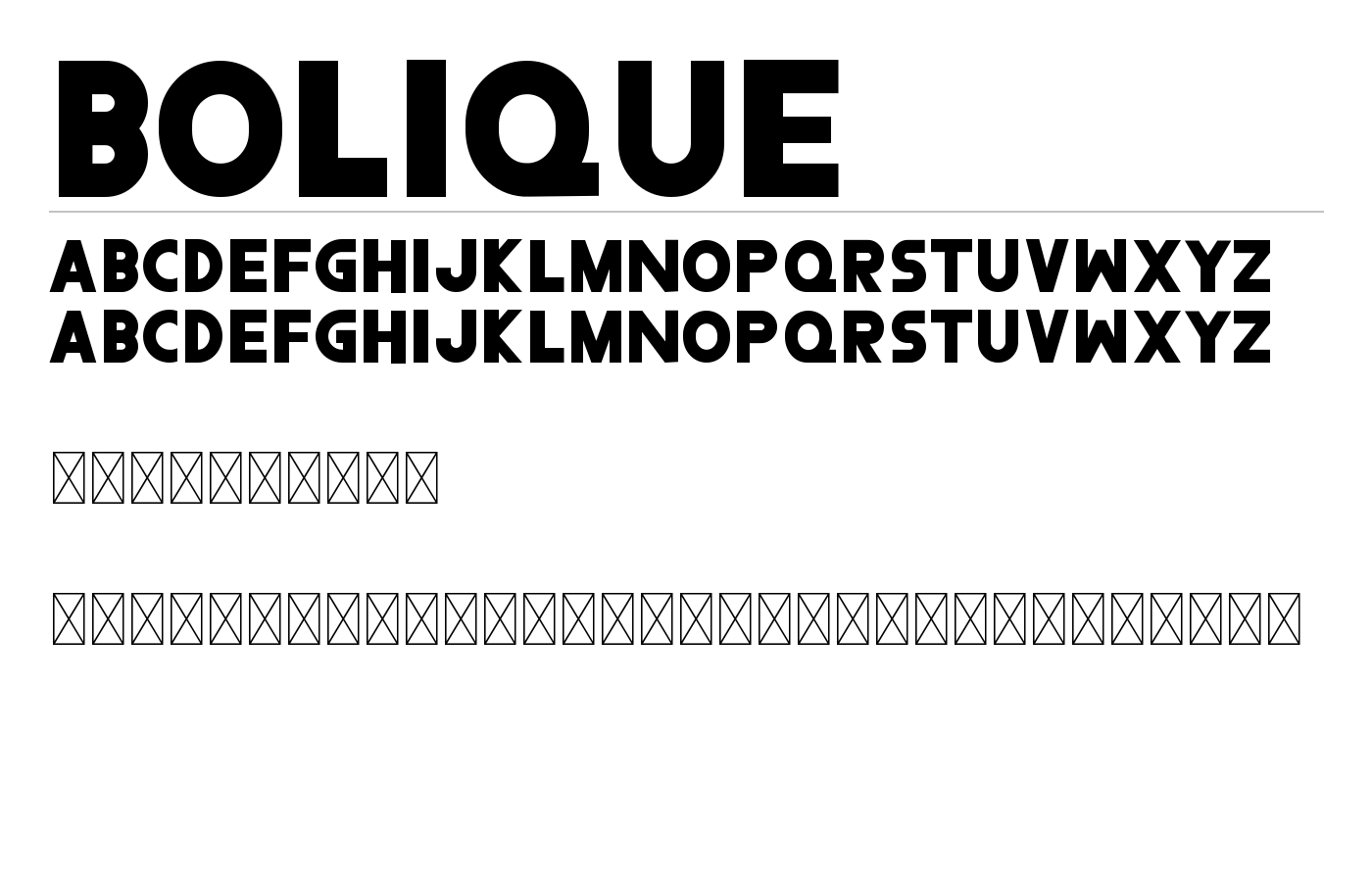
Bolique is a bold, geometric sans serif font characterized by thick, uniform strokes and a strong, structured appearance. Its wide letterforms and clean lines give it a modern, confident feel, making it ideal for impactful headlines, branding, and design projects that require a striking, contemporary look. This font works especially well where clarity and boldness are needed to grab attention and convey strength.
Bolique Font